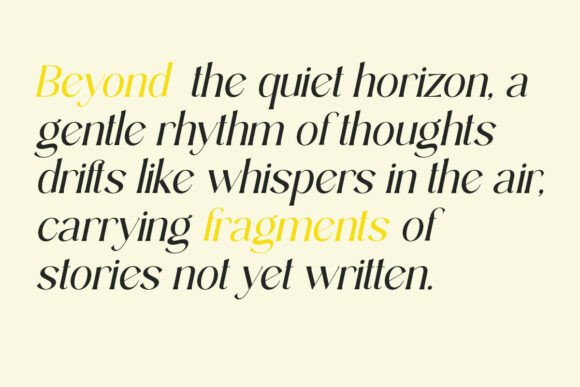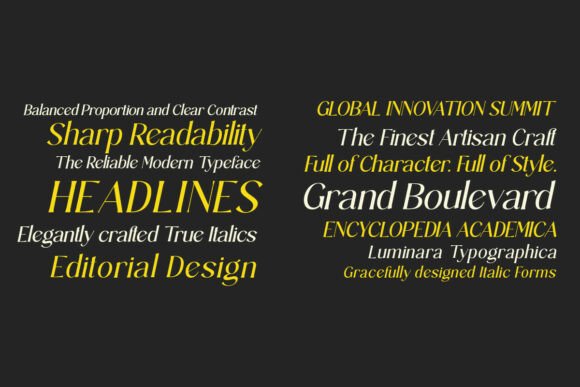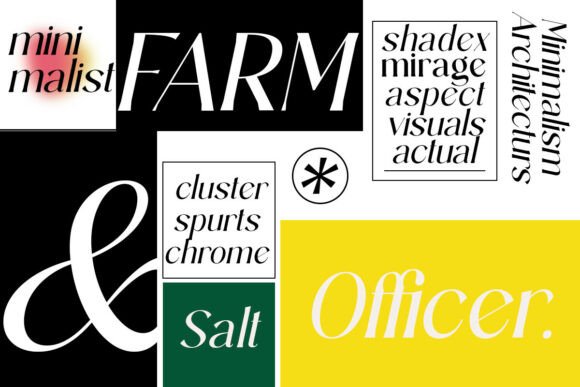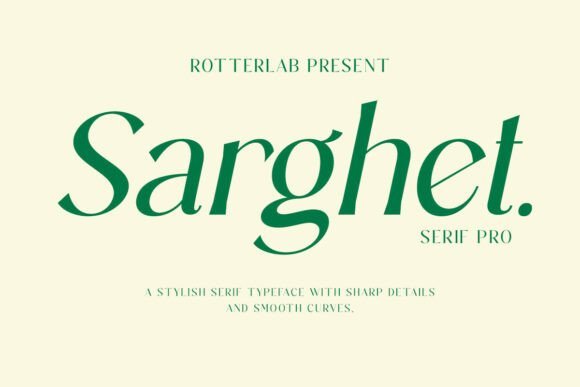
Introduction to Sarghet Slant Font
Sarghet Serif Pro has an elegant and modern character, combining smooth curves and sharp edges in each letter.
Its design emphasizes a luxurious and artistic feel, perfect for visual projects such as branding, editorial, or premium product packaging The bold yet soft serif style makes Sarghet classy, ​​easy to read, and full of personality, conveying both a professional and aesthetic impression.